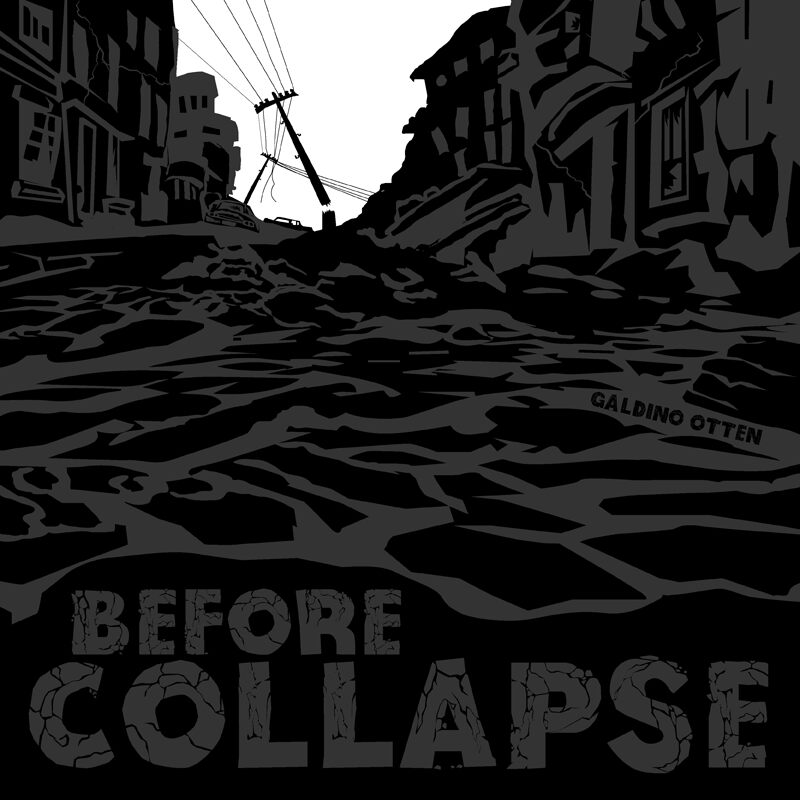
Before Collapse
Dive into the creative chaos of 'Before Collapse,' a display font crafted by the imaginative Galdino Otten Fonts. With its distorted, extra-bold character, this typeface is a playful rebel in the world of sans-serifs. Designed to capture attention and inject vibrancy into any project, it's not just a font-it's an attitude.
Perfect for picture books and children’s tales, 'Before Collapse' brings stories to life with its kid-friendly style. Educators and designers will find it a delightful choice for school materials and everyday creations that require a touch of fun. This font doesn't just speak; it shouts with joyful abandon, making it an irresistible pick for those looking to add personality and boldness to their work.